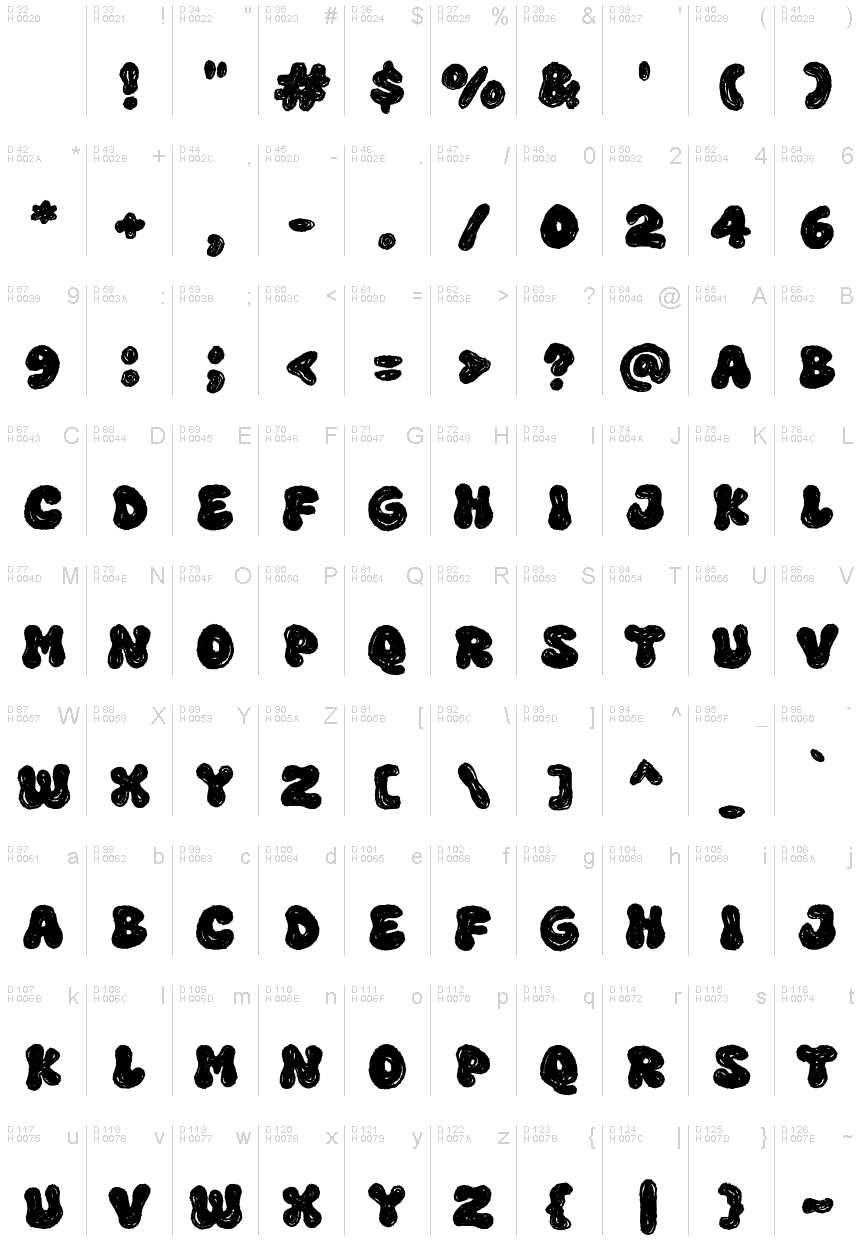
Super Surge
Super Surge font, designed by fsuarez913, is a bold, display typeface that radiates a playful and dynamic spirit. Its groovy, textured appearance evokes an organic feel, making it a standout choice for designs seeking to convey personality and vibrancy. The exaggerated forms create an eye-catching tactile quality, drawing the viewer in with their charm.
Ideal for projects that require a lively touch—such as posters, event signage, or branding elements—Super Surge effortlessly adds flair and character. Whether used in digital media or print applications, this font breathes energy into any setting, inviting creativity and engagement from its audience. Its unique style makes it a fantastic choice for designers looking to make a memorable impact.